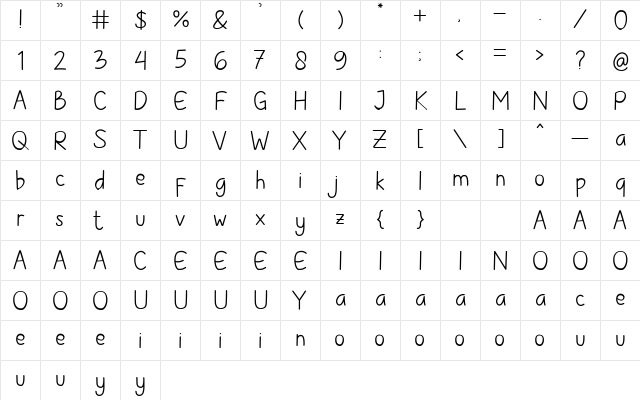
Childlet Regular
Design Context for Childlet Typeface
Childlet has an approachable, lighthearted character — its loose, expressive forms are well-suited to children's content, casual branding, and fun-first design.
Font Pairing: Pairs well with a rounded or humanist sans for body copy, maintaining the friendly tone without relying on Childlet to carry extended reading.
Pro Tip: Use Childlet at larger display sizes where its expressive character can land. Pair with a clean, simple sans for body copy to maintain readability.